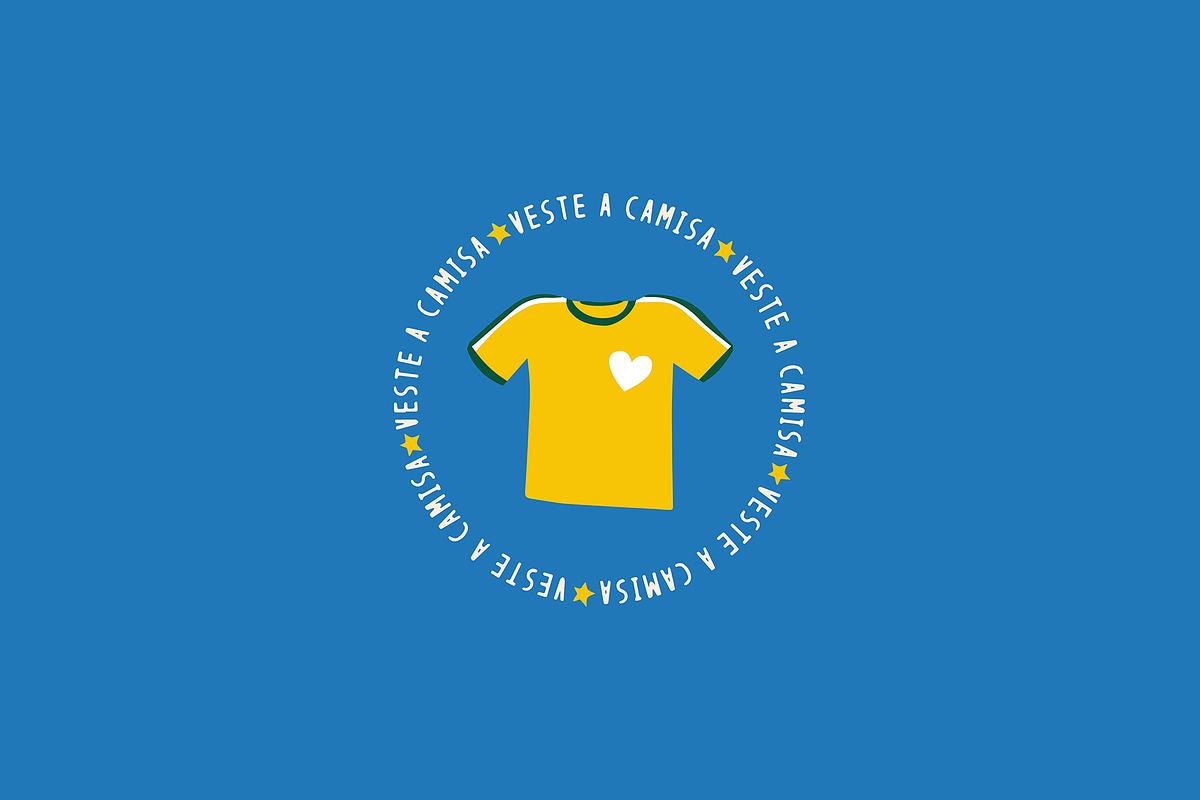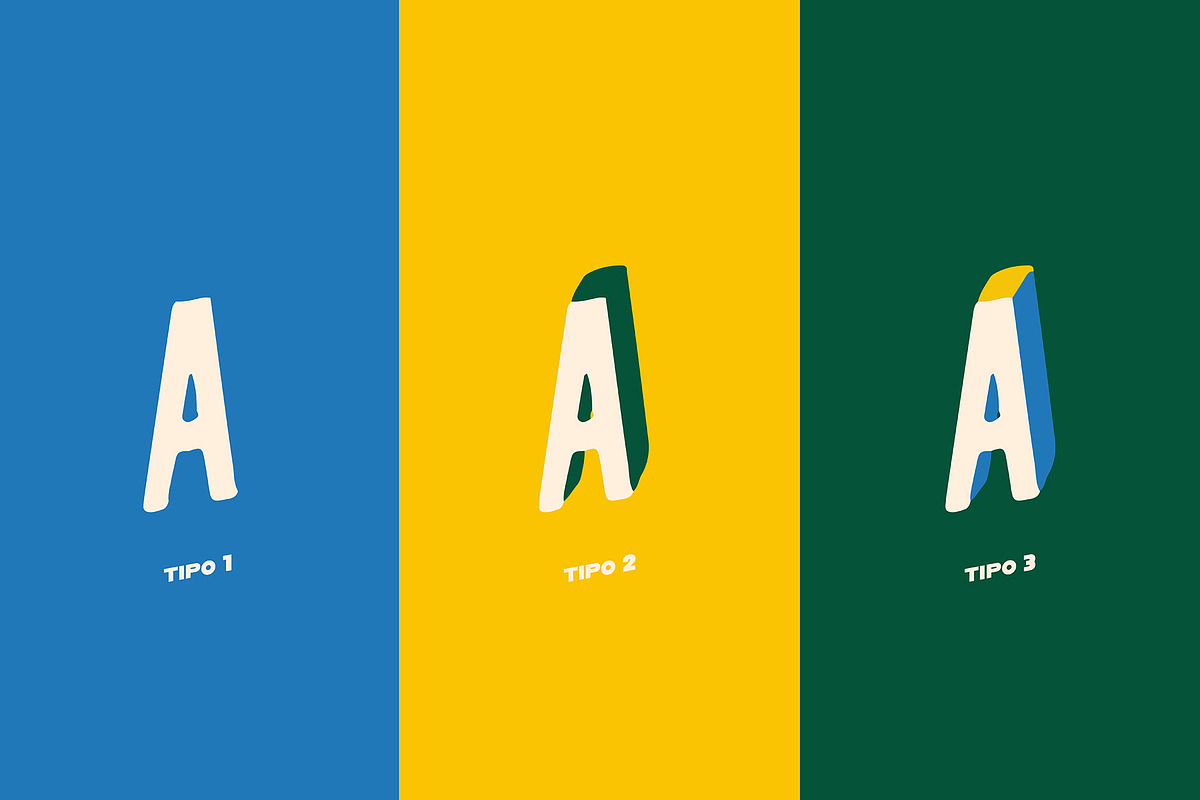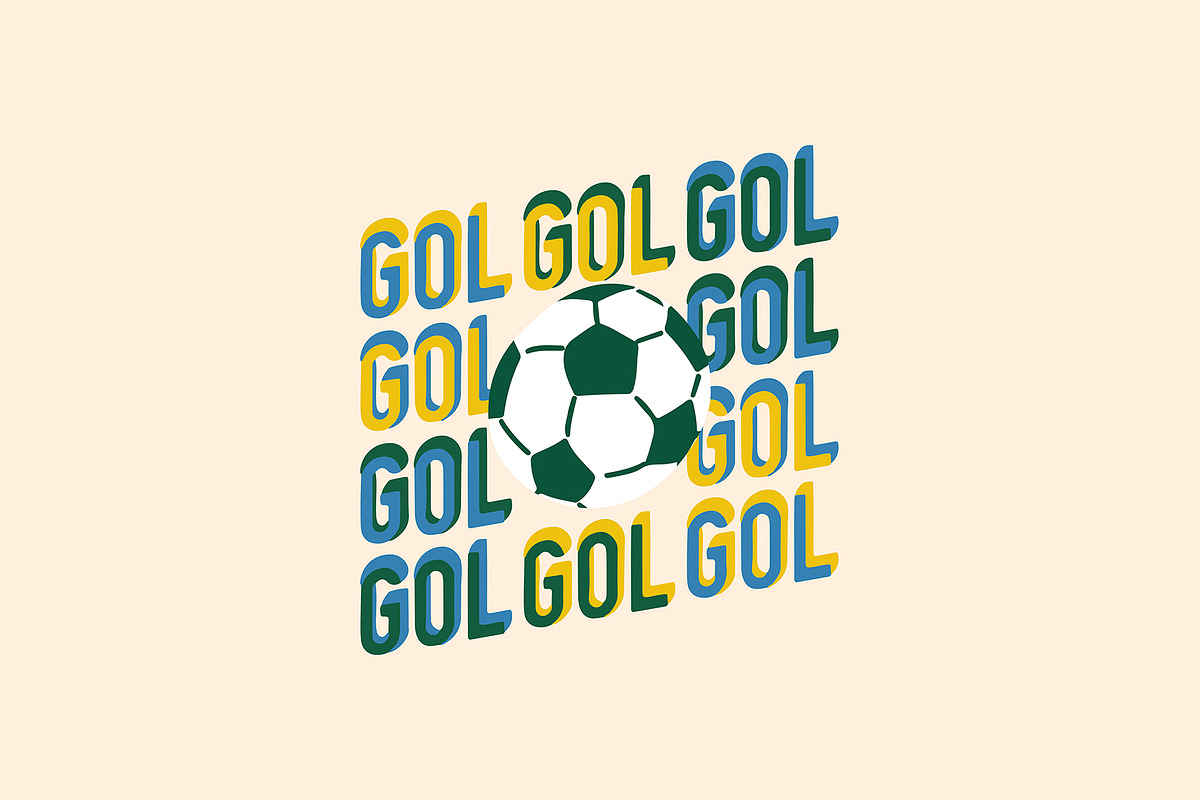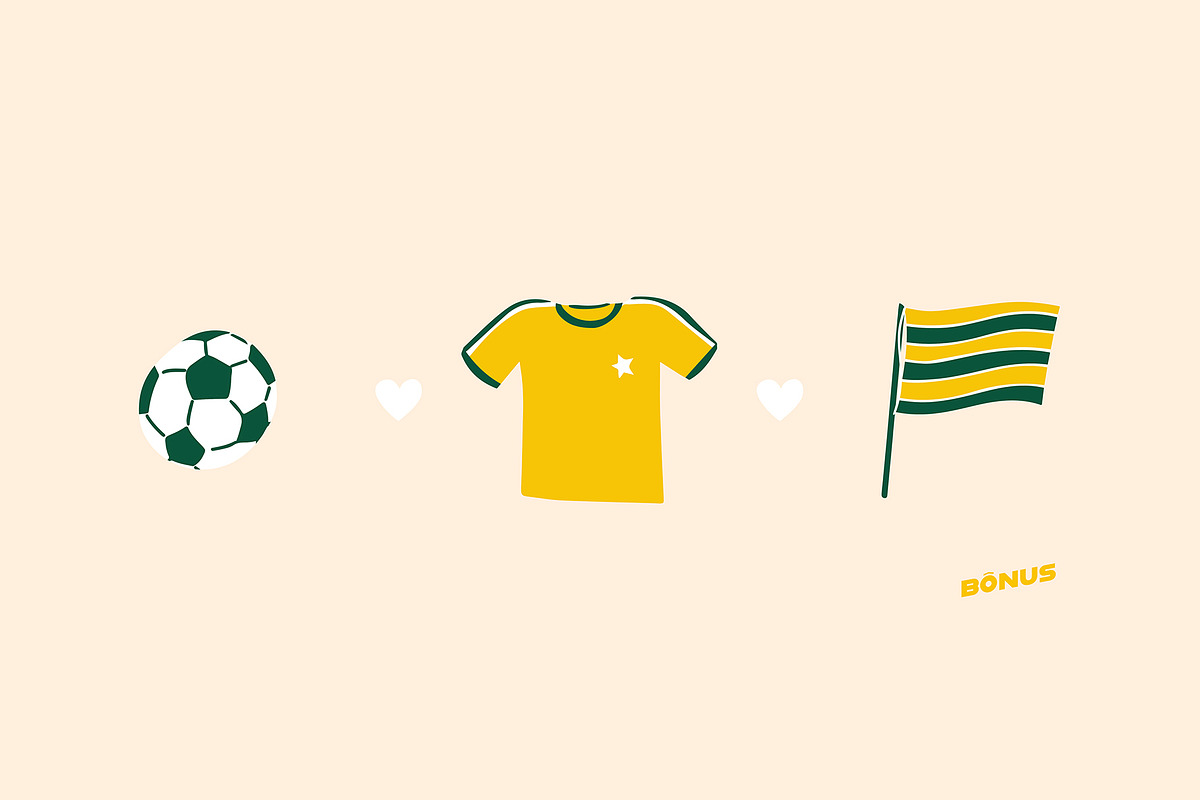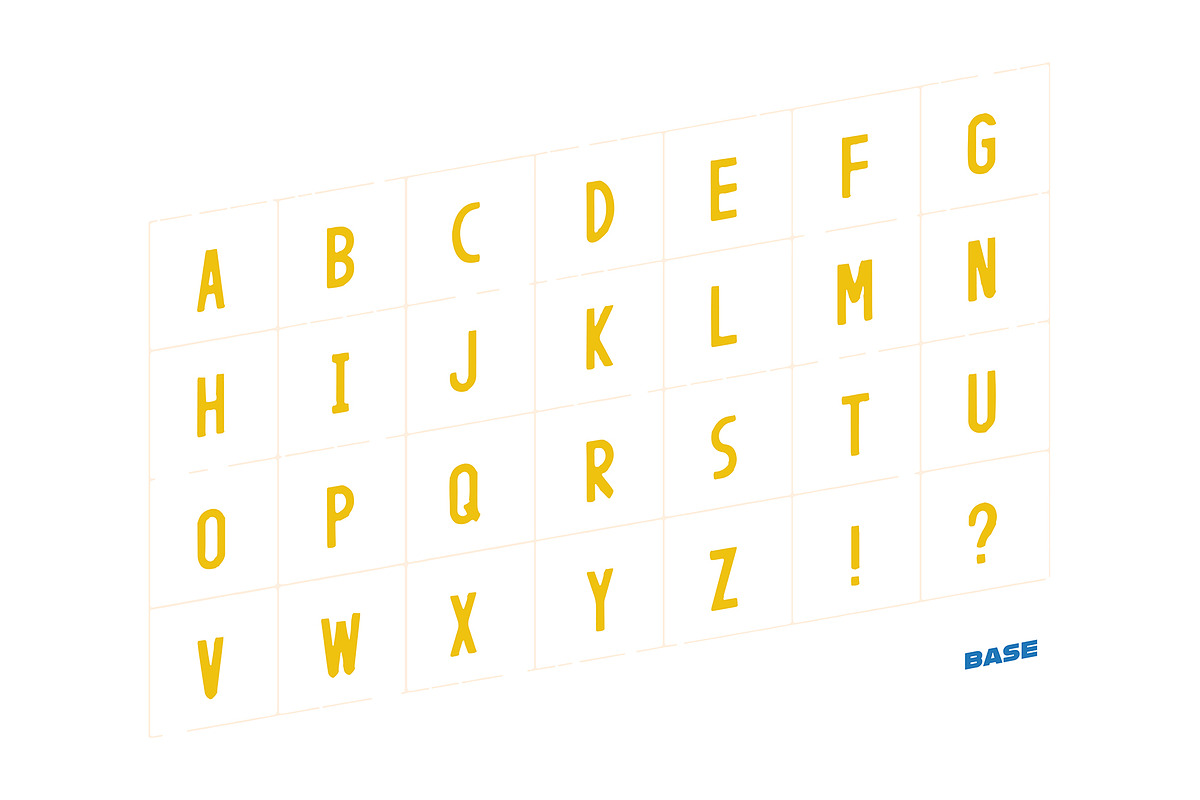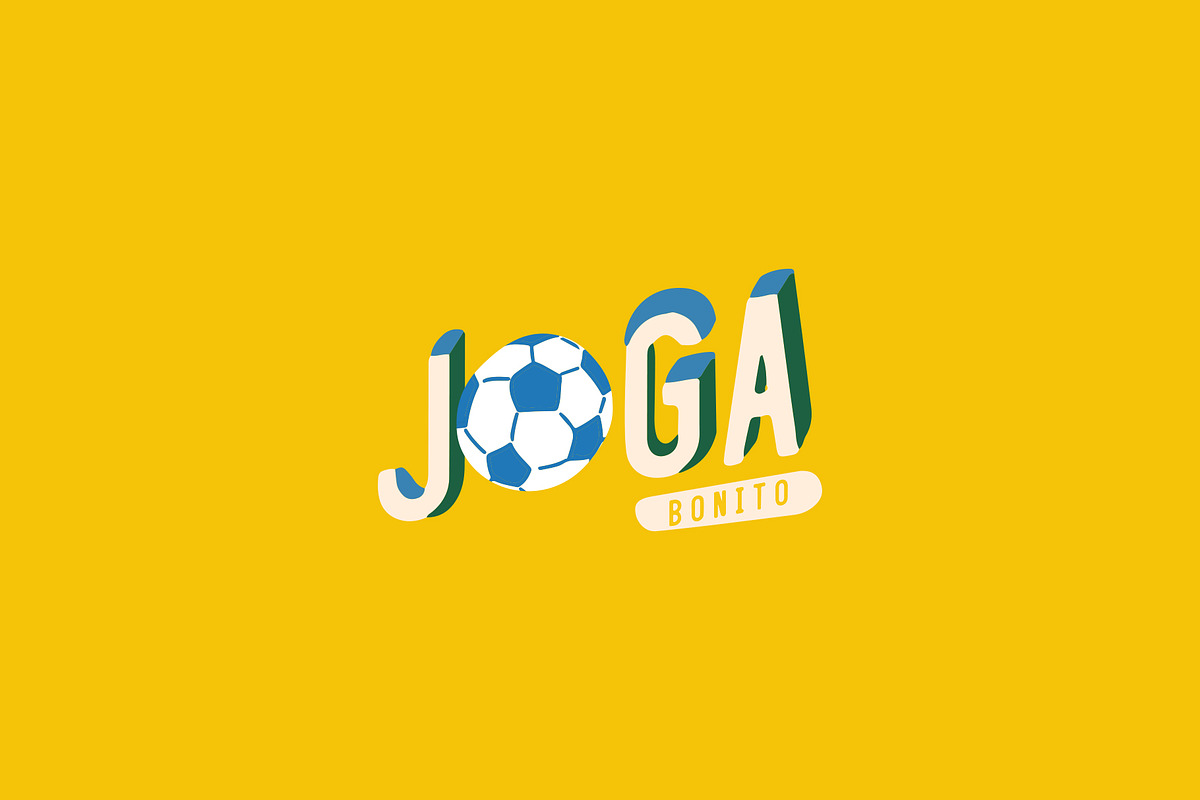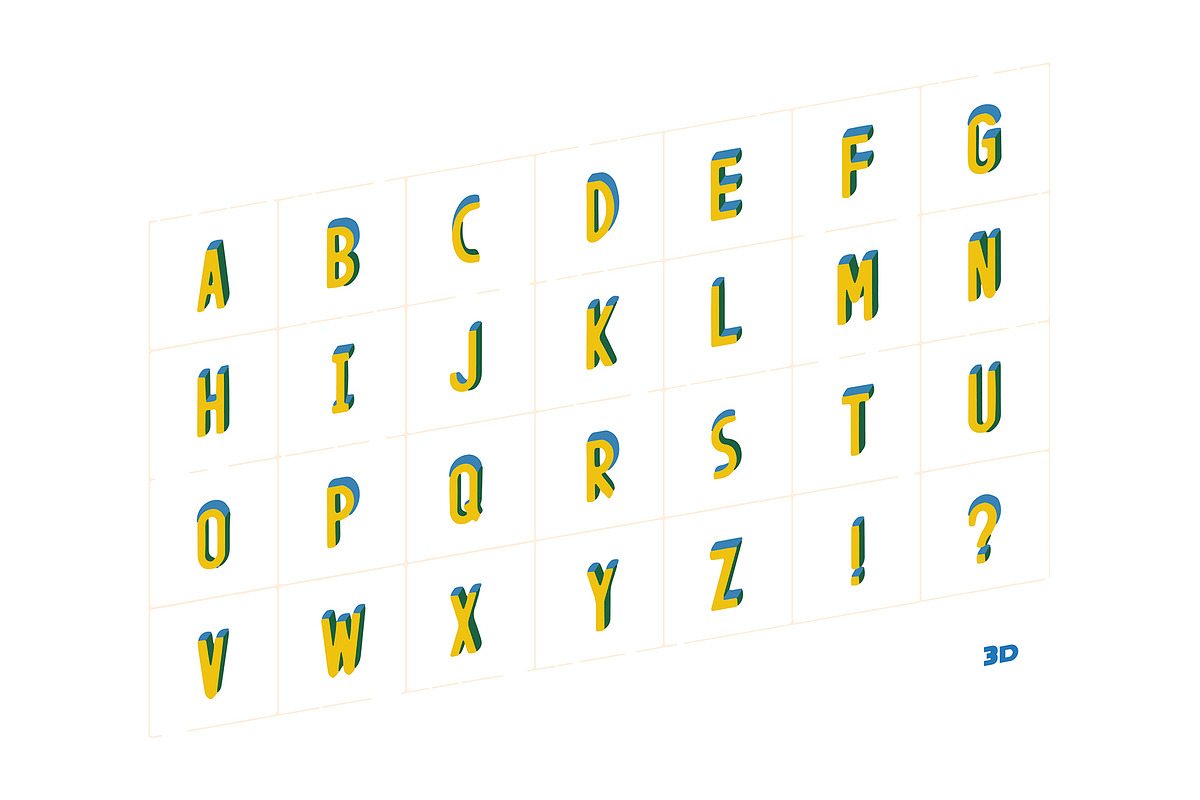
Brazuka Font + Bonus .ai
Vernacular typography inspired by the passion of Brazilians to decorate their backyards to cheer for the national team. File Format: Vector